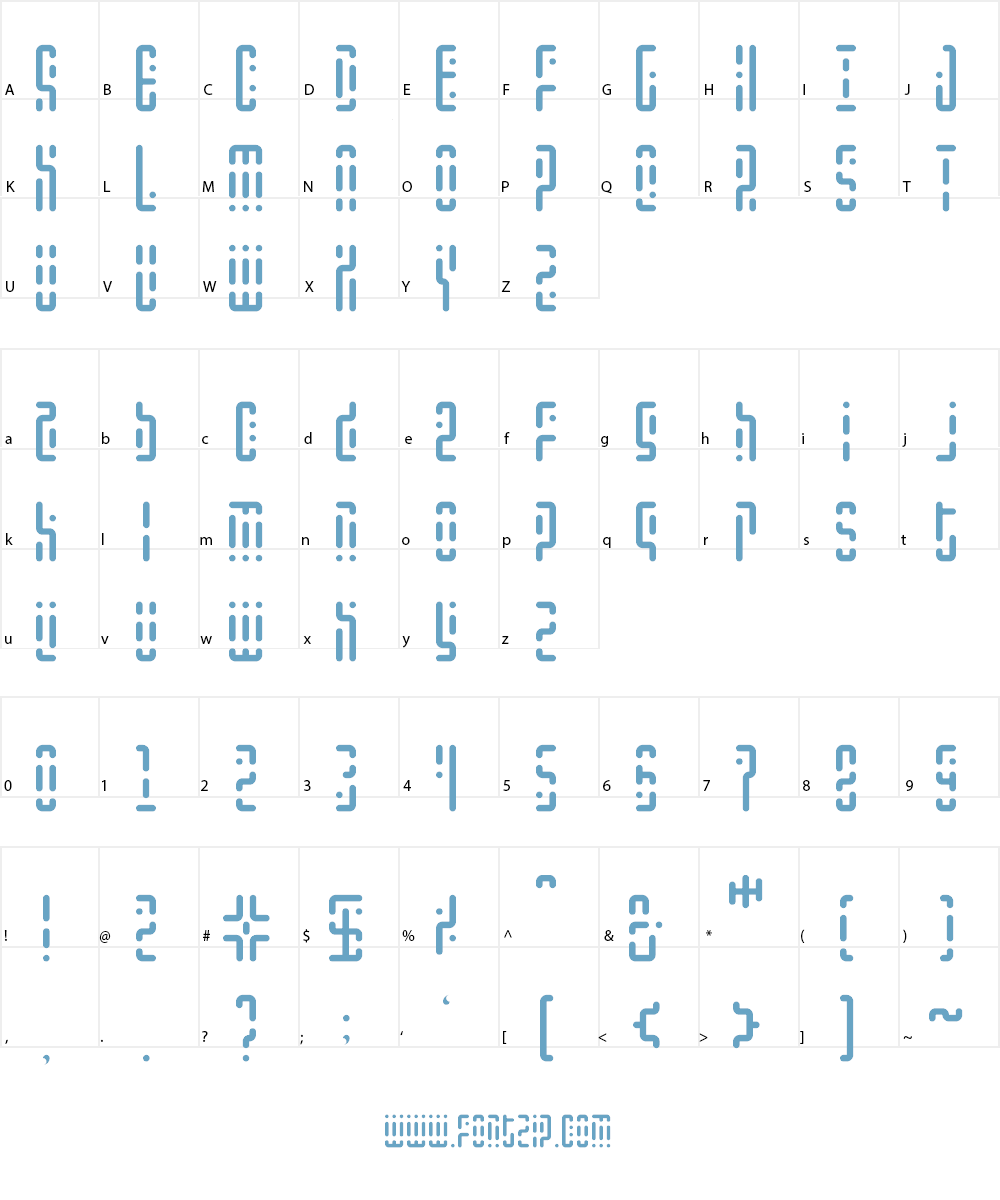
Experimental asymmetrical techno-wizard sans-serif stencil. That was quite a mouthful of words, wasn't it?
Supports Danish, Dutch, English, Finnish, French, German, Hungarian, Icelandic, Italian, Norwegian, Polish, Portuguese, Spanish, and Swedish!